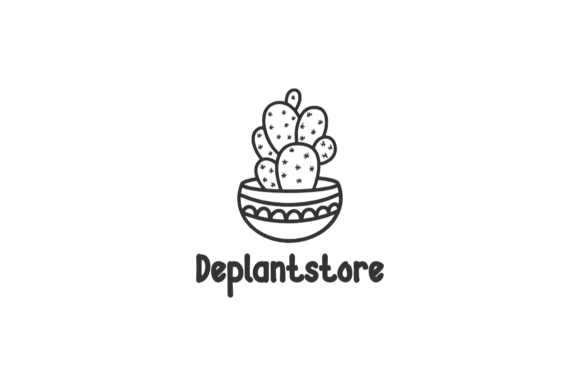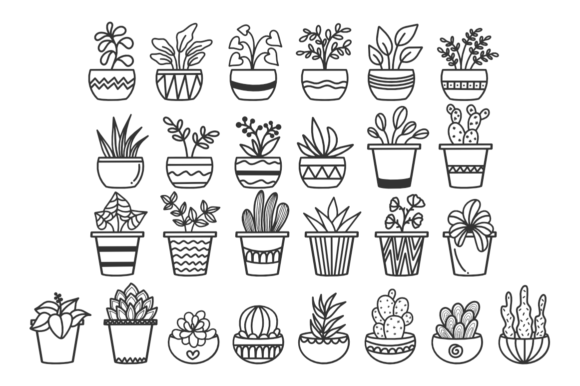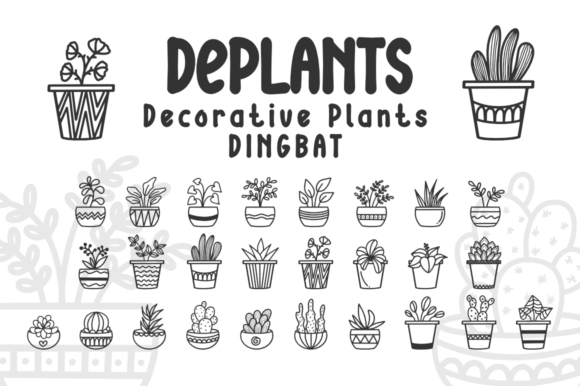
Introducing Deplants Font: The Cute and Useful Dingbats Font for Creative Projects
Are you a designer, crafter, or DIY enthusiast looking for a unique and versatile font to elevate your creative projects? Look no further than Deplants Font, a charming and practical dingbats font that’s perfect for a wide range of applications. In this article, we’ll explore the features and benefits of Deplants Font, and show you how it can help turn your creative ideas into stunning works of art.
What is Deplants Font?
Deplants Font is a delightful dingbats font that’s designed to add a touch of whimsy and personality to your creative projects. Dingbats fonts, also known as symbol fonts, are a type of font that features graphical symbols, such as icons, shapes, and illustrations, rather than traditional letterforms. Deplants Font takes this concept to the next level with its adorable and intricate designs, making it perfect for a variety of uses, from social media graphics to handmade crafts.
Features of Deplants Font
So, what makes Deplants Font so special? Here are just a few of its key features:
- Cute and playful designs: Deplants Font features a range of adorable illustrations, from plants and flowers to animals and objects.
- Versatile and adaptable: This font is perfect for a wide range of projects, from Instagram graphics and social media posts to DIY crafts and handmade cards.
- Easy to use: Deplants Font is a straightforward and user-friendly font that’s easy to install and use, even for those with limited design experience.
- Scalable and high-quality: This font is designed to be scalable, ensuring that it looks great in any size or resolution.
Uses for Deplants Font
Deplants Font is an incredibly versatile font that can be used in a wide range of creative projects. Here are just a few ideas to get you started:
- Instagram graphics: Add a touch of personality to your Instagram posts and stories with Deplants Font’s cute and playful designs.
- DIY crafts: Use Deplants Font to add custom lettering and illustrations to your handmade crafts, such as cards, gift tags, and scrapbook pages.
- Calligraphy scripts: Deplants Font is perfect for creating beautiful calligraphy scripts for special occasions, such as weddings, birthdays, and holidays.
- Social media graphics: Use Deplants Font to create eye-catching social media graphics, such as Facebook posts, Twitter headers, and Pinterest pins.
Benefits of Using Deplants Font
So, why choose Deplants Font for your creative projects? Here are just a few benefits of using this amazing font:
- Adds personality and whimsy: Deplants Font’s cute and playful designs add a touch of personality and whimsy to your creative projects.
- Saves time and effort: With Deplants Font, you can quickly and easily add custom illustrations and lettering to your projects, saving you time and effort.
- Enhances creativity: Deplants Font’s unique and versatile designs can help spark your creativity and inspire new ideas.
- Perfect for crafters and designers: Whether you’re a professional designer or a DIY crafter, Deplants Font is the perfect choice for adding a touch of elegance and sophistication to your projects.